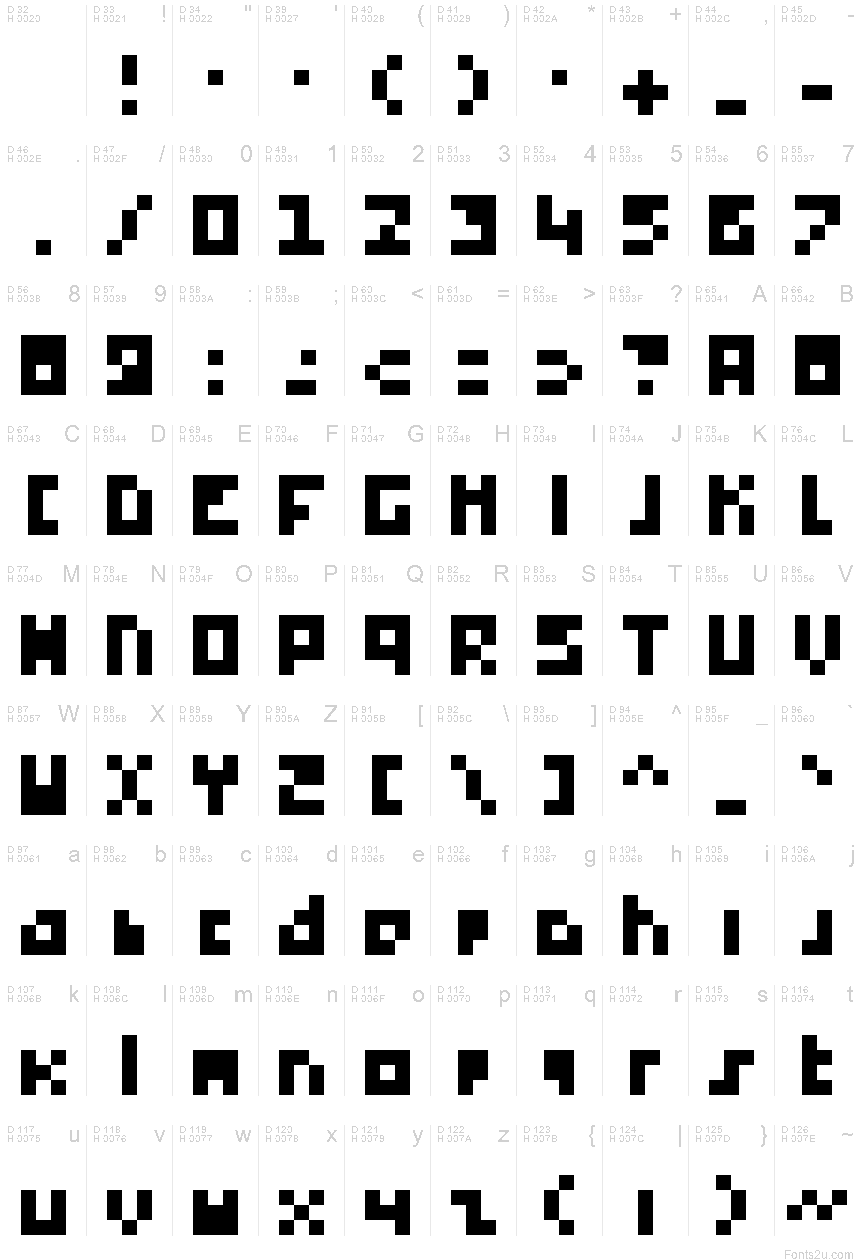
Ikkle 4 Regular
Evolution of the Ikkle font, Ikkle-4 is a 4px limited font designed primarily for pixel art games that want to make use of very limited space.
“Ikkle 4” is based on “Ikkle” by “Bitty” (http://fontstruct.com/fontstructors/show/1048061/bitty)